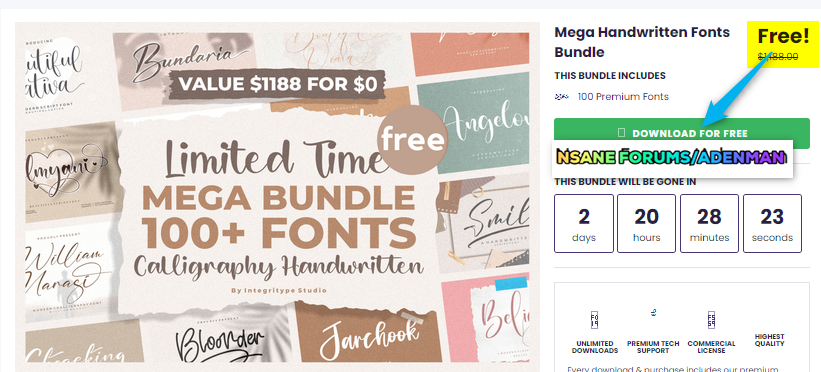
Create beautiful designs with 100 gorgeous handwritten fonts with a variety of styles such as calligraphy, signature, brush lettering and handwriting. Get Mega Handwritten Fonts Bundle includes a lifetime commercial license for free!
This bundle gathers 100 gorgeous handwritten fonts with a variety of styles such as calligraphy, signature, brush lettering, handwriting, and comes with hundreds of glyphs, including alternate, ligatures, swashes, and international language support. It’s the perfect to font bundle for your crafting projects that requires a handwritten touch!